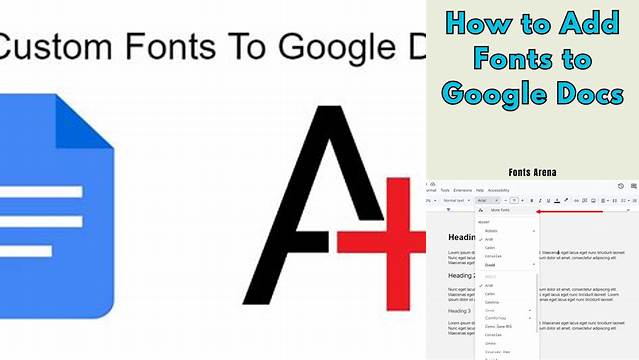
Add Custom Fonts To Google Docs: A Step-by-Step Guide
Adding custom fonts to your Google Docs can significantly enhance the visual appeal and branding of your documents. While Google Docs offers a wide array of pre-installed fonts, sometimes you need a specific typeface to match your brand guidelines or project requirements. Luckily, Google Docs provides a straightforward way to incorporate custom fonts, allowing you to create professional and visually engaging documents. In this guide, we'll walk you through the process step-by-step, ensuring you can easily add and use your favorite fonts in Google Docs.
Understanding Font Compatibility and Google Fonts
Before diving into the process, it's crucial to understand the types of fonts that Google Docs supports. Google Docs primarily utilizes Google Fonts, a vast library of free and open-source fonts that are readily available for web use. These fonts are designed to be compatible across different browsers and devices, ensuring consistent rendering regardless of the platform. When you add a custom font to Google Docs, you're essentially adding it to your Google Fonts collection, making it accessible within the Google Docs environment.
The beauty of Google Fonts lies in its simplicity and accessibility. The fonts are hosted on Google's servers, which means you don't need to worry about downloading or installing them on your computer. They're automatically available in your Google Docs account once you add them. However, it's important to note that Google Docs primarily supports TrueType Fonts (.ttf) and OpenType Fonts (.otf). These formats are widely used and offer excellent compatibility. If you have a font in a different format, such as a PostScript Type 1 font, you may need to convert it to a compatible format before adding it to Google Docs.
When choosing custom fonts, consider factors such as legibility, style, and branding. A legible font ensures that your text is easy to read, while the style of the font should align with the overall tone and purpose of your document. For example, a formal document might benefit from a classic serif font like Times New Roman or Georgia, while a creative project could use a more modern sans-serif font like Montserrat or Open Sans. Branding is another key consideration. If your company or organization has specific font guidelines, make sure to choose custom fonts that adhere to those guidelines.
Step-by-Step Guide to Adding Custom Fonts
Now, let's get to the core of the matter: how to actually add custom fonts to Google Docs. The process involves using Google Fonts, which is seamlessly integrated with Google Docs. Here’s a detailed, step-by-step guide to help you through:
Step 1: Open Your Google Doc
First things first, open the Google Doc where you want to use your custom font. If you don't have one already, create a new document by going to Google Drive, clicking on “New,” and selecting “Google Docs.” This will open a fresh, blank document ready for your creative input.
Step 2: Access the Font Menu
Once your document is open, navigate to the font menu. This is where you'll find the list of available fonts. Click on the font dropdown menu located in the toolbar at the top of the screen. It usually displays the currently selected font, like “Arial” or “Times New Roman.” Clicking this will reveal the full list of fonts currently available in your Google Docs.
Step 3: Select “More Fonts”
At the bottom of the font dropdown menu, you'll see an option labeled “More fonts.” Click on “More fonts” to open the Google Fonts dialog box. This is where the magic happens! This dialog box is your gateway to the vast library of Google Fonts, where you can browse, search, and add new fonts to your Google Docs.
Step 4: Browse or Search for Your Font
The “More fonts” dialog box presents you with a plethora of options. You can scroll through the list of fonts, which is quite extensive, or you can use the search bar to find a specific font by name. Google Fonts also offers filtering options to help you narrow down your choices. You can filter by font type (serif, sans-serif, display, handwriting, monospace), font scripts (Latin, Cyrillic, Greek, etc.), and font properties (thickness, slant, width). Take your time to explore the options and find the font that best suits your needs.
Step 5: Add the Font to Your “My Fonts” List
Once you've found a font you like, click on it to add it to your “My fonts” list. This list is a personalized collection of fonts that you've selected for use in your Google Docs. As you click on fonts, they will be added to the list on the right side of the dialog box. You can add multiple fonts at once, so feel free to select a few that you find appealing.
Step 6: Click “OK” to Apply Changes
After you've added all the fonts you want, click the “OK” button in the bottom right corner of the dialog box. This will close the “More fonts” dialog and update your font menu in Google Docs. The fonts you added will now appear at the top of the font dropdown menu, under the “My fonts” section. This makes it easy to access your custom fonts whenever you need them.
Step 7: Use Your Custom Font
Now that you've added your custom fonts, it's time to use them! Select the text you want to format, then click on the font dropdown menu and choose your custom font from the “My fonts” section. Your selected text will instantly update to reflect the new font. You can apply custom fonts to headings, body text, captions, and any other text elements in your document. Experiment with different fonts to create visually appealing and professional-looking documents.
Adding custom fonts to Google Docs is a simple yet powerful way to enhance the visual appeal and branding of your documents. By following the steps outlined in this guide, you can easily incorporate your favorite fonts into your Google Docs workflow. Remember to choose fonts wisely, considering factors such as legibility, style, and branding. By adhering to best practices for font usage, you can create professional and visually engaging documents that leave a lasting impression. So go ahead, explore the world of custom fonts and elevate your Google Docs creations today!